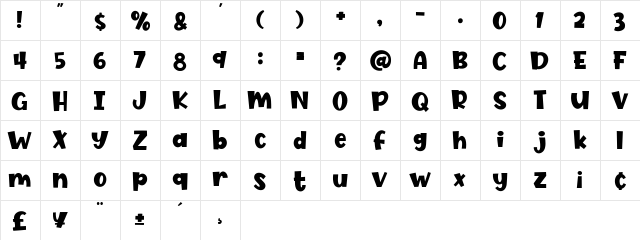
Fresh Coconut Regular
Design Context for Fresh Coconut Typeface
Fresh Coconut is a composed and adaptable typeface that performs quietly and consistently across a wide range of design contexts.